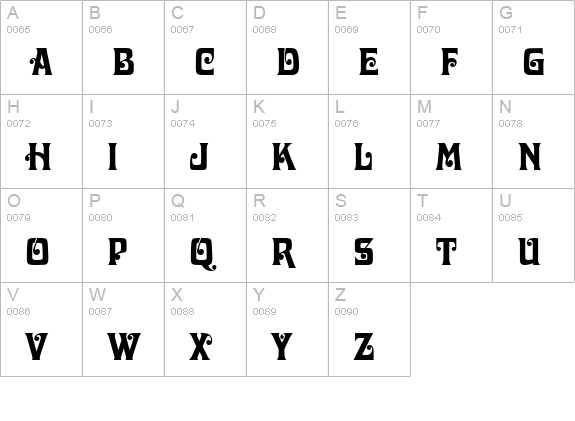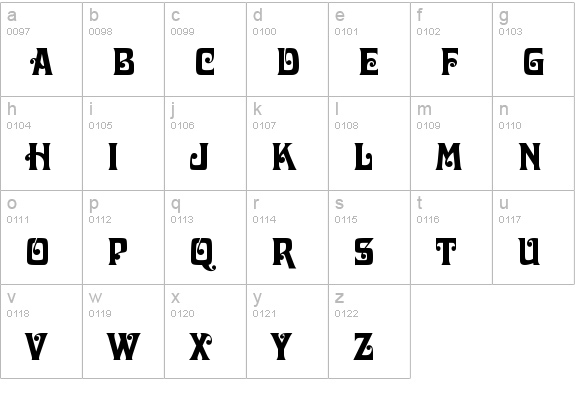
DavidaD Font Details
DavidaD font is a striking and elegant typeface that exudes sophistication and style. With its unique and modern design, DavidaD is perfect for adding a touch of class to any project. The font features clean lines and sharp edges that give it a contemporary look while maintaining a classic feel. What sets DavidaD apart is its versatility - it can be used for a variety of design projects, from logos and branding to invitations and posters. The font's bold and eye-catching appearance makes it a standout choice for any creative endeavor. Best of all, DavidaD is completely free to download at FontsMarket.com. This means that you can access this beautiful font without any cost, making it an excellent option for designers and creatives looking to elevate their work without breaking the bank. Don't miss out on the opportunity to enhance your designs with DavidaD font - download it today and let your creativity shine!